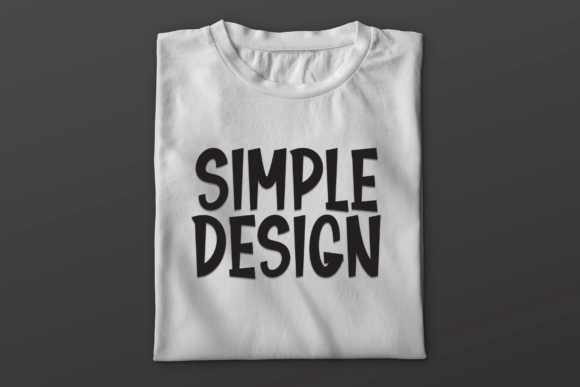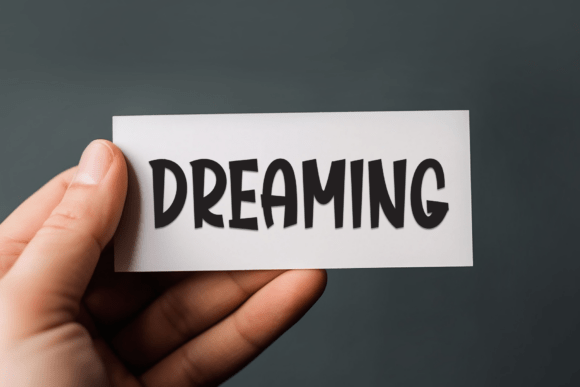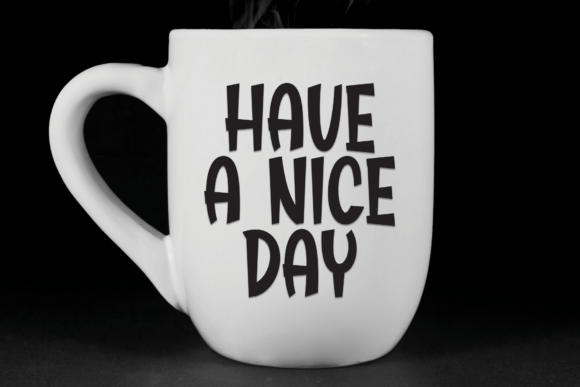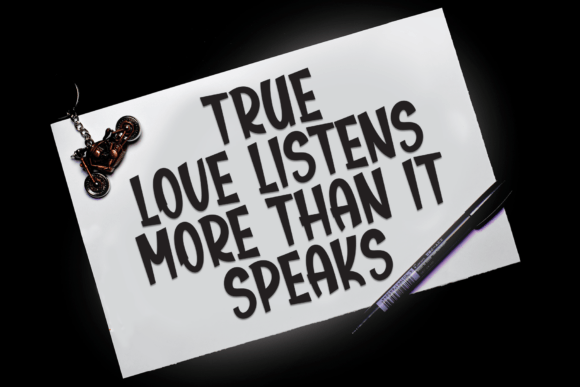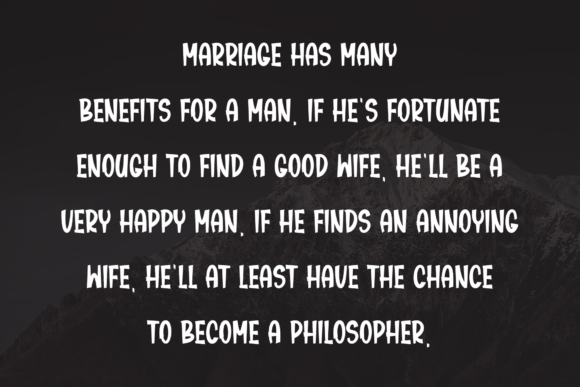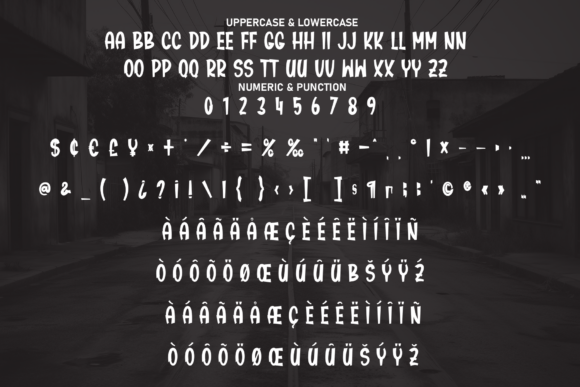
Unleash the Urban Spirit with Black Street Font
Are you looking for a typeface that embodies the raw energy of the streets? Do you want to add an edgy touch to your designs that screams urban and unfiltered? Look no further than Black Street Font, a gritty display typeface that’s taking the design world by storm.
The Birth of Black Street Font
Black Street Font is more than just a typeface – it’s a statement. Its massive, hand-drawn sans-serif letterforms are uniquely characterized by rhythmic, asymmetrical “marker-style” strokes and raw, jagged edges that bridge the gap between underground graffiti tags and modern street culture branding. This font is the perfect reflection of the urban landscape, where creativity knows no bounds and self-expression is king.
What Makes Black Street Font Stand Out
So, what sets Black Street Font apart from other typefaces? Here are just a few of its standout features:
- Heavy Structural Weight: Black Street Font has a bold, chunky feel that’s perfect for making a statement. Its heavy structural weight ensures that your designs will stand out in a crowded urban landscape.
- Rhythmic, Asymmetrical Strokes: The font’s marker-style strokes add a touch of organic, hand-drawn flair to your designs. This unique feature gives Black Street Font a rebellious, edgy personality that’s hard to ignore.
- Raw, Jagged Edges: The font’s raw, jagged edges add a touch of grit and texture to your designs. This feature is perfect for creating a sense of urban grittiness and authenticity.
Perfect for Urban-Inspired Designs
Black Street Font is the premier choice for designers who want to create urban-inspired designs that resonate with the young and the bold. Here are just a few examples of how you can use this versatile typeface:
- Independent Skate Apparel Identities: Black Street Font is perfect for creating bold, eye-catching logos for independent skate apparel brands. Its heavy structural weight and rebellious personality make it a natural fit for this niche.
- Urban Music Event Posters: Want to create posters that scream urban cool? Black Street Font is the perfect choice. Its raw, jagged edges and rhythmic strokes will add a touch of grit and authenticity to your designs.
- Edgy Streetwear Logos: Black Street Font is a natural fit for edgy streetwear logos that want to make a statement. Its bold, chunky feel and rebellious personality make it perfect for brands that want to stand out in a crowded market.
- High-Impact Social Media Headers: Want to create social media headers that grab attention and refuse to let go? Black Street Font is the perfect choice. Its heavy structural weight and raw, jagged edges make it perfect for creating bold, high-impact headers that will stop people in their tracks.
Why Designers and Crafters Love Black Street Font
So, why do designers and crafters love Black Street Font? Here are just a few reasons:
- Uniqueness: Black Street Font is a one-of-a-kind typeface that’s sure to set your designs apart from the crowd.
- Versatility: This font is perfect for a wide range of design applications, from skate apparel to urban music event posters.
- Authenticity: Black Street Font is a genuine reflection of urban culture and street style. Its raw, edgy personality is sure to resonate with anyone who loves the urban aesthetic.
In conclusion, Black Street Font is a gritty display typeface that’s perfect for designers and crafters who want to add an urban touch to their designs. Its heavy structural weight, rhythmic strokes, and raw, jagged edges make it a standout typeface that’s sure to grab attention. Whether you’re creating independent skate apparel identities, urban music event posters, edgy streetwear logos, or high-impact social media headers, Black Street Font is the premier choice. So why wait? Claim the pavement with Black Street Font and unleash the urban spirit in your designs!